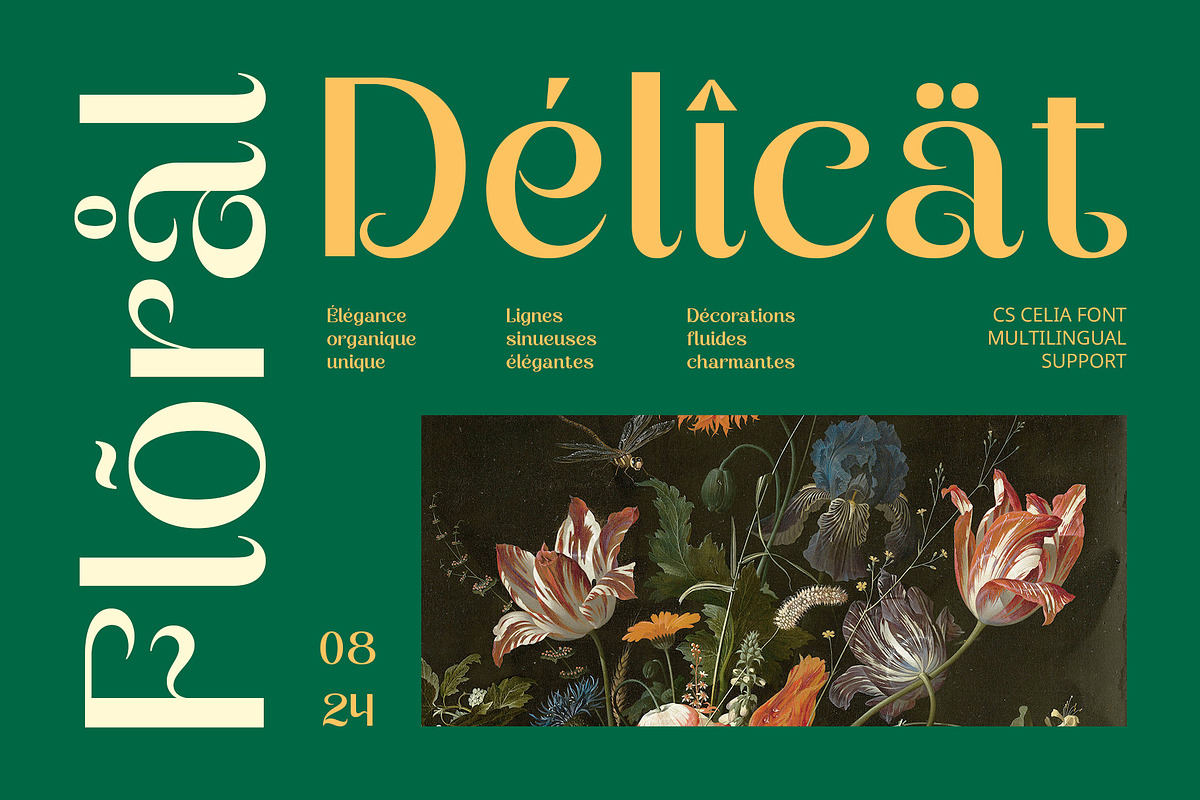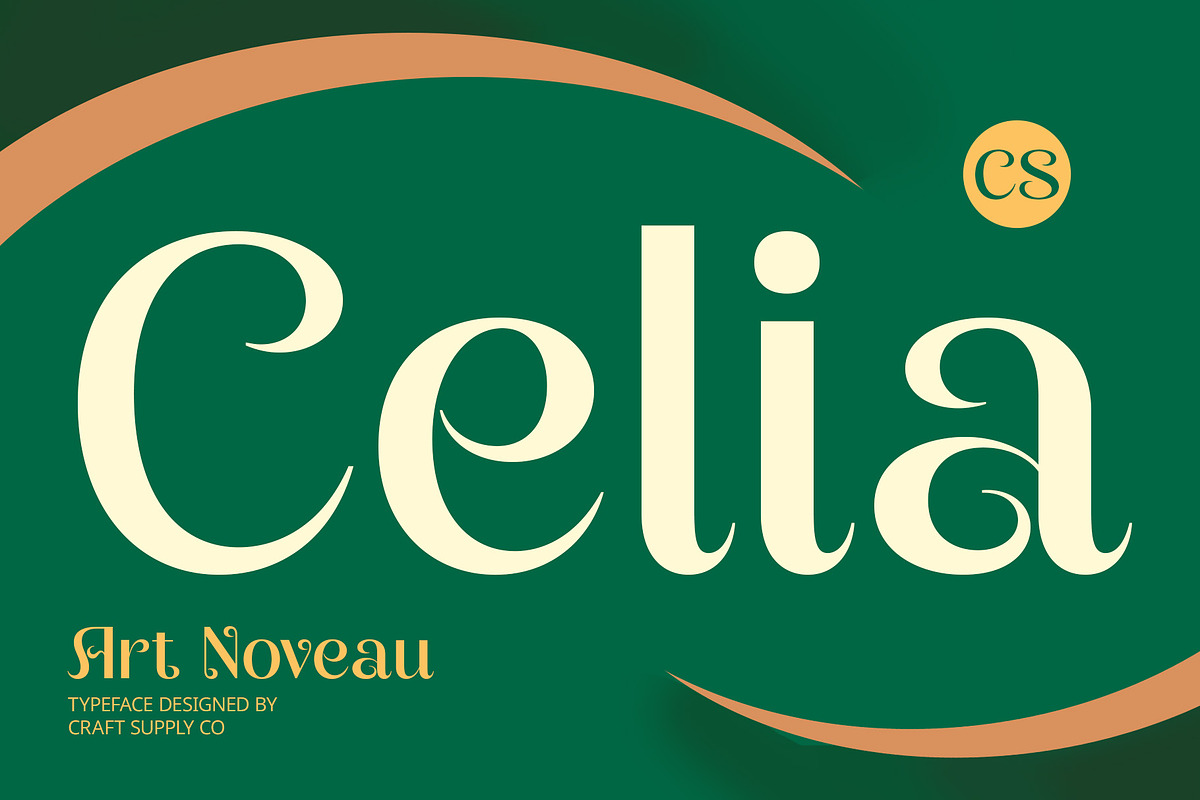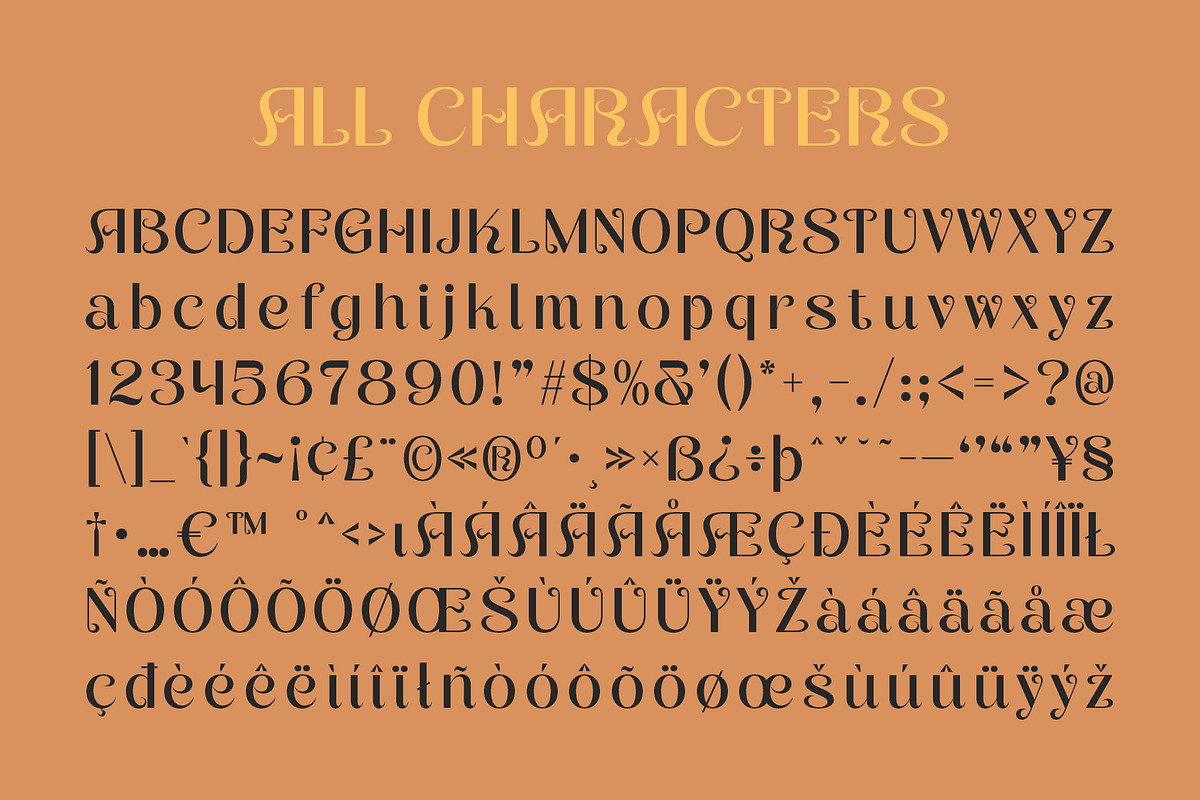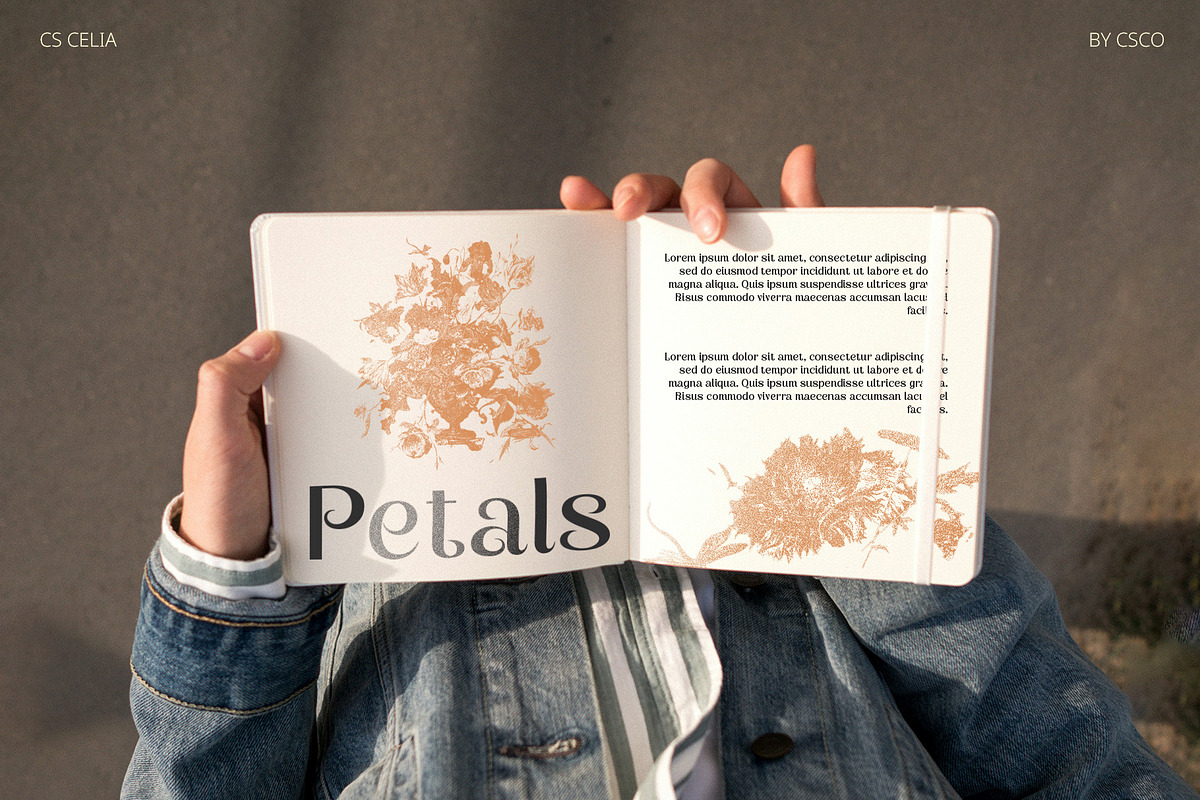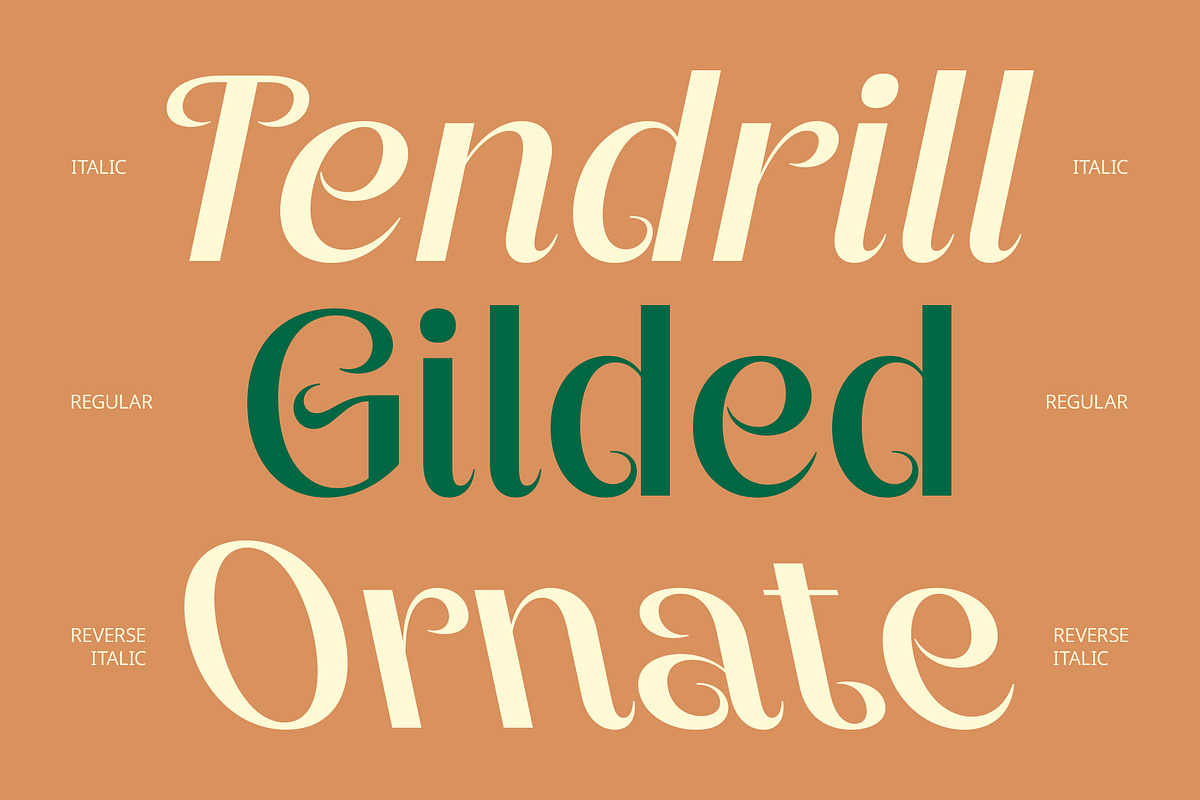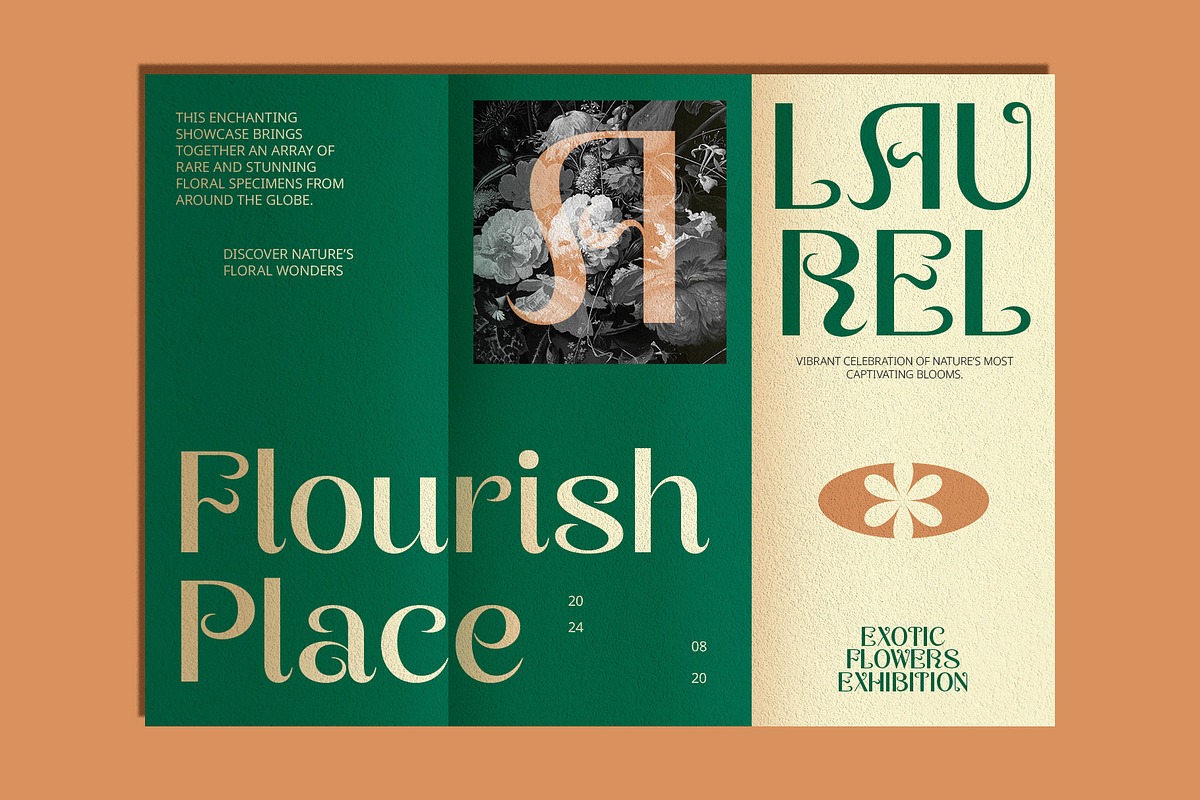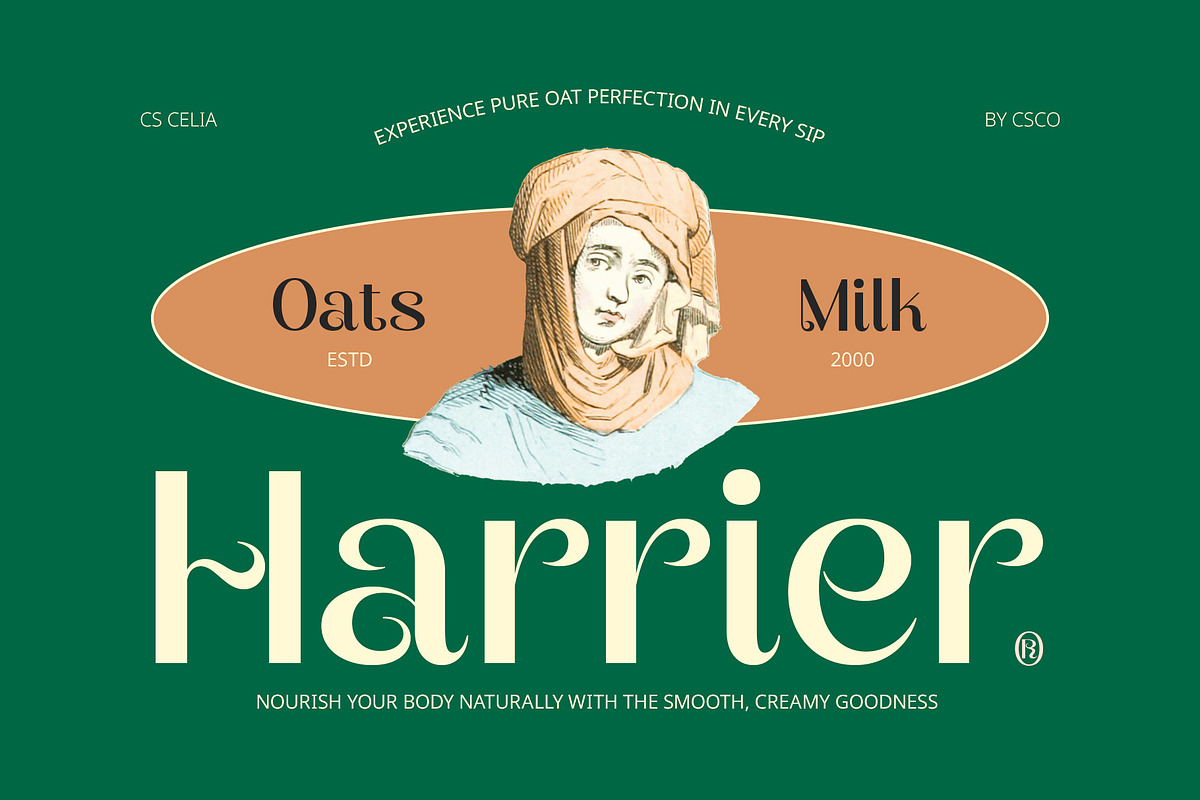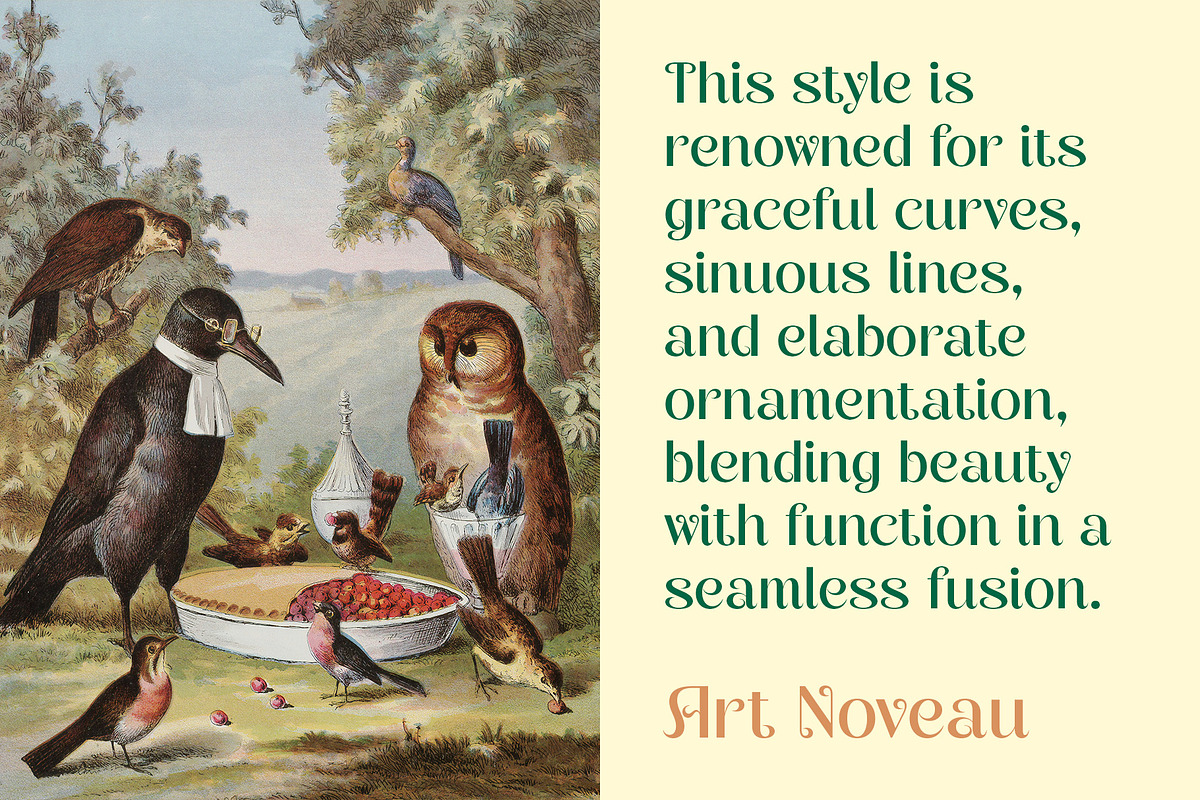
CS Celia – Art Nouveau Font
CS Celia – Art Nouveau Font: Refined Elegance with a Modern Twist
Modern Sans-Serif with Art Nouveau Influences CS Celia is a modern sans-serif font infused with Art Nouveau influences, blending sleek contemporary forms with the flowing, intricate details characteristic of the Art Nouveau movement. Its design features graceful lines and organic shapes that create a sophisticated and refined appearance while preserving the clarity and simplicity of a sans-serif typeface.
Elegant and Sophisticated Design The font’s elegant curves and detailed embellishments evoke the classic beauty of Art Nouveau, offering a touch of timeless sophistication. Despite its ornate influences, CS Celia maintains a modern, streamlined look, making it perfect for high-end branding and luxurious product packaging.
Ideal for High-End and Sophisticated Applications CS Celia shines in projects that demand both elegance and modernity. Whether used in luxury product packaging, high-end branding, or sophisticated editorial layouts, this font adds a distinctive blend of classic beauty and contemporary elegance, making it an excellent choice for premium design applications.
Versatile for Elegant and Refined Designs From stylish branding to chic editorial designs, CS Celia provides a versatile solution for projects requiring a balance of modern clarity and classic charm. Its combination of Art Nouveau grace and modern simplicity ensures a refined and eye-catching appearance across various creative contexts.
- CS Celia Regular
- CS Celia Italic
- CS Celia Reverse Italic